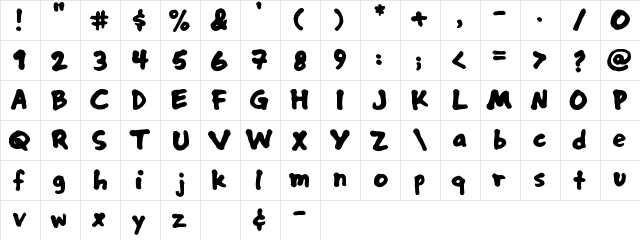
nusaliver Regular
| Designer | 뤩bujado |
Design Context for nusaliver Typeface
nusaliver is a composed and adaptable typeface that performs quietly and consistently across a wide range of design contexts.